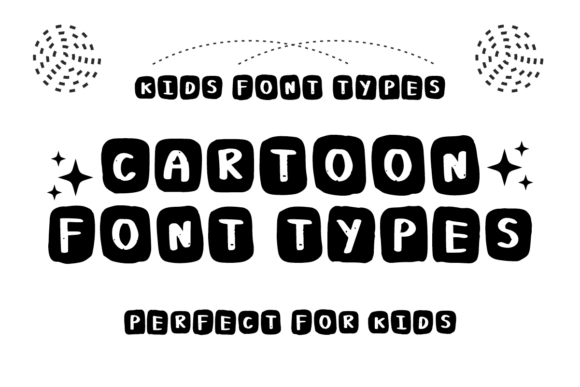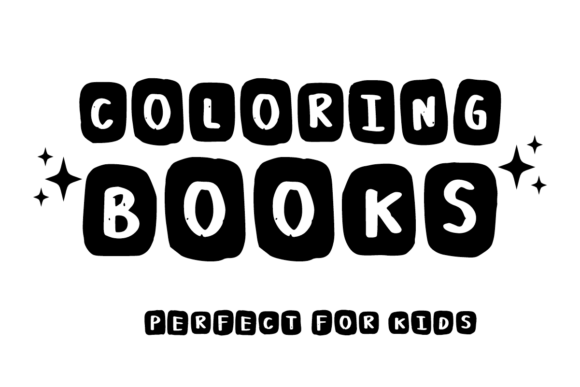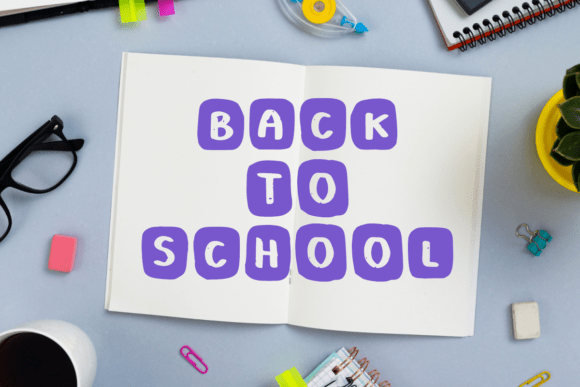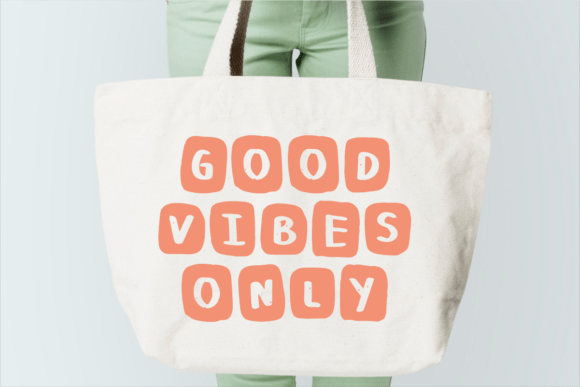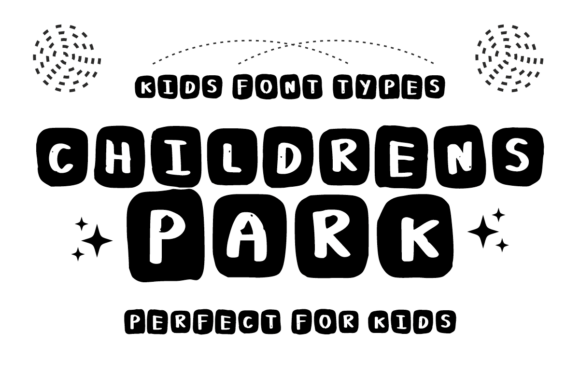
Introducing Children’s Park Font: The Ultimate Choice for Fun and Playful Designs
Are you looking for a font that can add a touch of fun and playfulness to your designs? Look no further than Children’s Park Font, a unique and modern decorative cartoon font that is perfect for kids’ books, playground branding, children’s apparel, and school posters. In this article, we’ll explore the features and benefits of Children’s Park Font, and why it’s a must-have for designers and crafters who work with children.
What is Children’s Park Font?
Children’s Park Font, also known as Children’s Park – Fun Kids Block Font, is a chunky, blocky font that is crafted for youthful fun. It consists of only uppercase letters, each of which is carefully designed to be cute, unique, and sweet. The font features rounded, hand-drawn letters that are easy to read and full of character, making it perfect for designs that require a bold, friendly personality.
Key Features of Children’s Park Font
• Unique and Modern Design: Children’s Park Font features a unique and modern design that is sure to grab the attention of your audience.
• Chunky and Blocky: The font has a chunky, blocky design that is perfect for kids’ books, playground branding, and children’s apparel.
• Uppercase Letters: The font consists of only uppercase letters, making it easy to read and perfect for headlines and titles.
• Rounded and Hand-Drawn: The letters are rounded and hand-drawn, giving the font a friendly and approachable feel.
• Easy to Read: The font is easy to read, making it perfect for designs that require a clear and concise message.
Use Cases for Children’s Park Font
Children’s Park Font is a versatile font that can be used in a variety of designs, including:
• Kids’ Books: The font is perfect for kids’ books, adding a touch of fun and playfulness to your story.
• Playground Branding: The font is great for playground branding, creating a bold and eye-catching sign that kids will love.
• Children’s Apparel: The font is perfect for children’s apparel, adding a fun and playful touch to t-shirts, hoodies, and more.
• School Posters: The font is great for school posters, creating a bold and eye-catching design that kids will love.
• Children’s Craft Designs: The font is perfect for children’s craft designs, adding a touch of fun and playfulness to your project.
• Sublimated T-Shirts: The font is great for sublimated t-shirts, creating a bold and eye-catching design that kids will love.
• Mugs and Tote Bags: The font is perfect for mugs and tote bags, adding a fun and playful touch to your design.
• Animations and Comic Titles: The font is great for animations and comic titles, creating a bold and eye-catching design that kids will love.
• Children’s Coloring Books: The font is perfect for children’s coloring books, adding a touch of fun and playfulness to your design.
Why Choose Children’s Park Font?
There are many reasons why you should choose Children’s Park Font for your next design project. Here are a few:
• Unique and Playful Design: The font features a unique and playful design that is sure to grab the attention of your audience.
• Highly Versatile: The font is highly versatile and can be used in a variety of designs, from kids’ books to playground branding.
• Perfect for Children: The font is perfect for designs that are aimed at children, adding a touch of fun and playfulness to your project.
Font Name Childrens Park Font
Author anamalmusyaffaCreative
In conclusion, Children’s Park Font is a unique and modern decorative cartoon font that is perfect for kids’ books, playground branding, children’s apparel, and school posters. With its chunky, blocky design and rounded, hand-drawn letters, this font is sure to add a bold, friendly personality to any child-focused design. Whether you’re a designer or crafter, Children’s Park Font is a must-have font that will help you create fun and playful designs that kids will love.